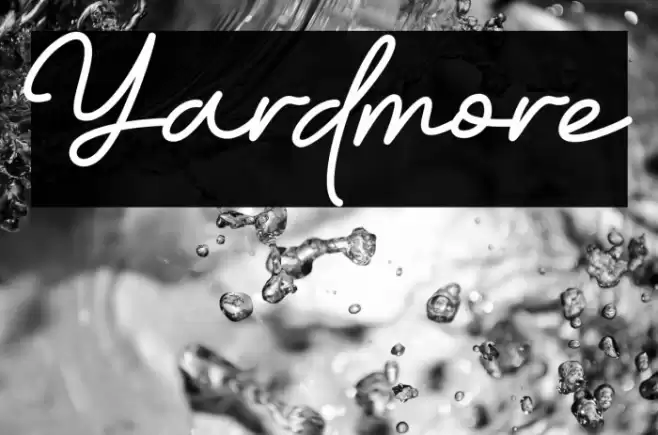
Yardmore Font
Yardmore Description
This font features a flowing, cursive style that mimics natural handwriting with a modern twist. The letters are connected, providing a seamless and elegant appearance. The uppercase letters are bold and slightly larger than the lowercase, which are more delicate and rounded. Numbers and special characters maintain the same fluidity, ensuring consistency across all characters. The strokes are smooth and continuous, with a medium contrast in thickness, giving it a dynamic yet readable look. This font exudes a personal and artistic flair, making it suitable for creative and expressive projects.
A modern, cursive font with a flowing, handwritten style from Uncategorized fonts.
- Proposed Projects: Ideal for wedding invitations, personal branding, greeting cards, and artistic projects.
- Use Case: Logos, Invitations, Artistic projects